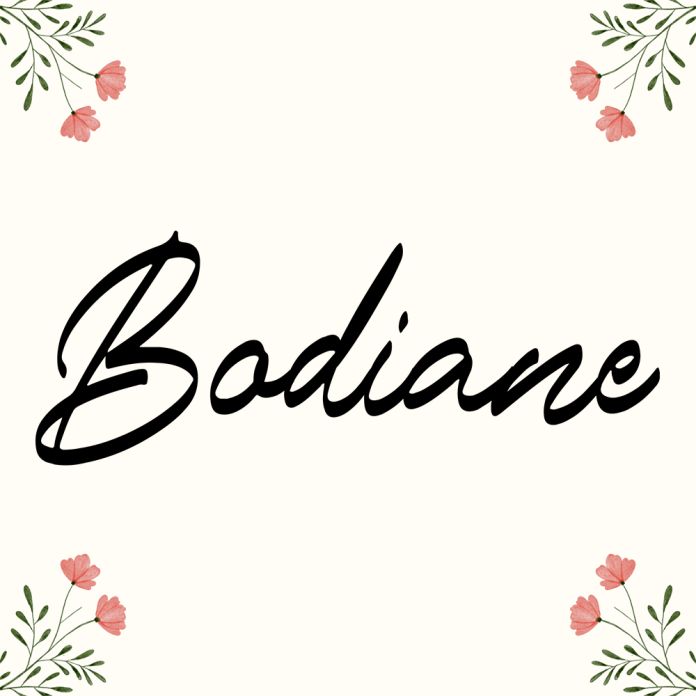
Bodiane feels equally charming and elegant. It looks stunning on wedding invitations, thank you cards, quotes, greeting cards, logos, business cards and every other design which needs a handwritten touch.